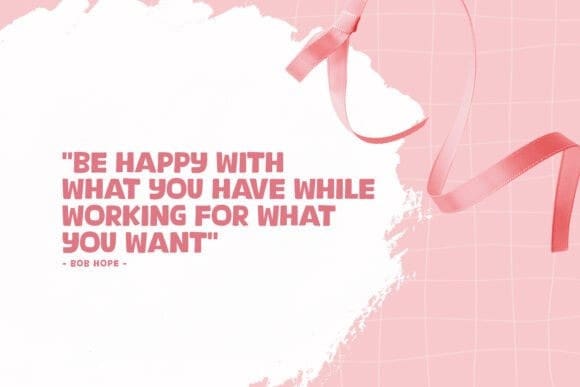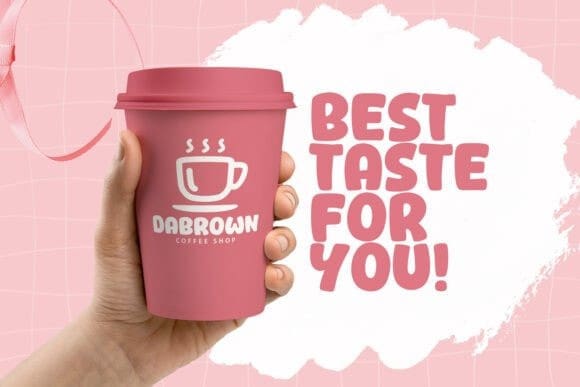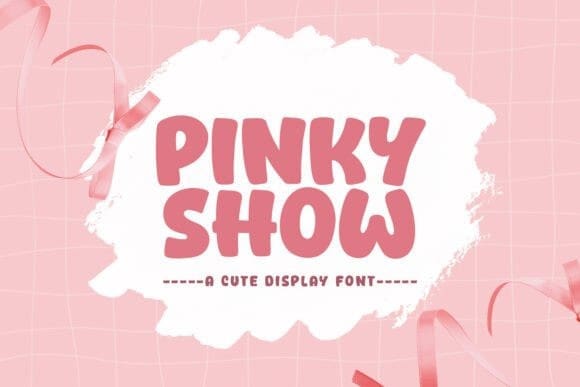
Pinky Show Font
Pinky Show is a modern and cute display font perfect for posters, logos, magazines, book covers, banners, and many more! Get this amazing font, and use it to create lovely designs. It can easily be matched to an incredibly large set of projects, so add it to your creative ideas and notice how it makes them stand out!